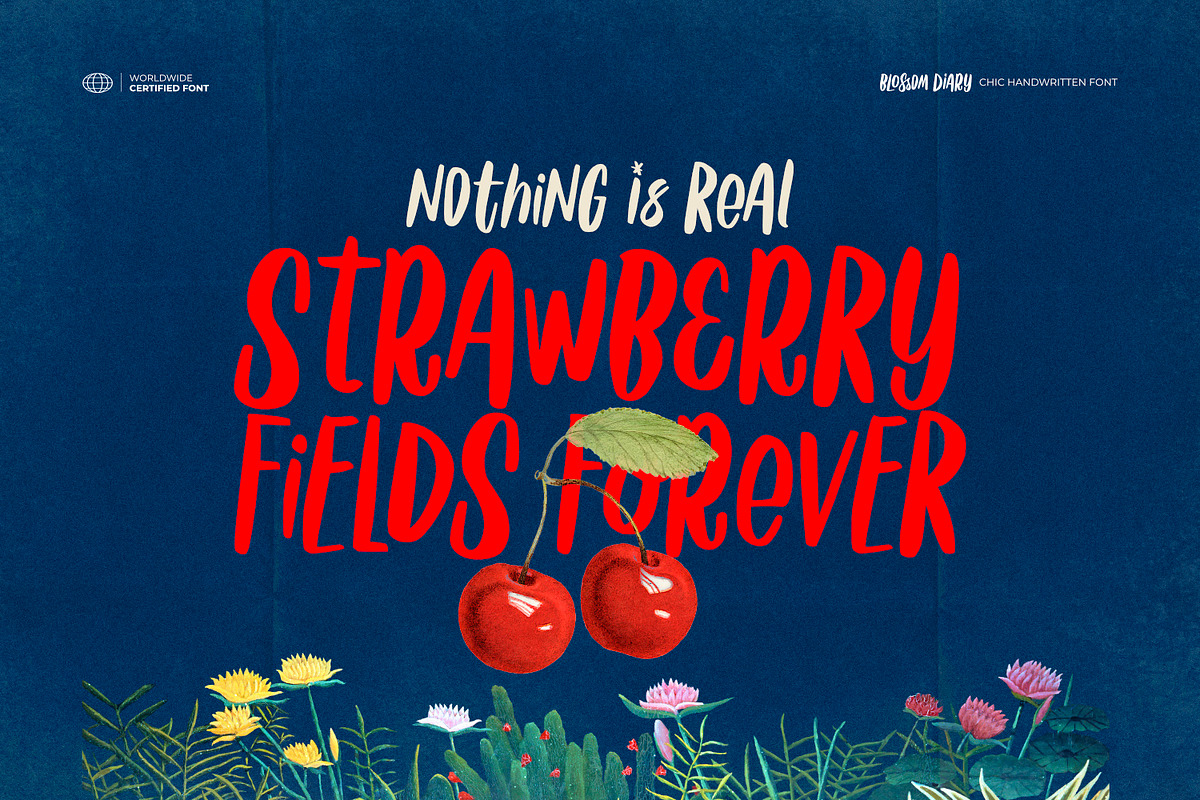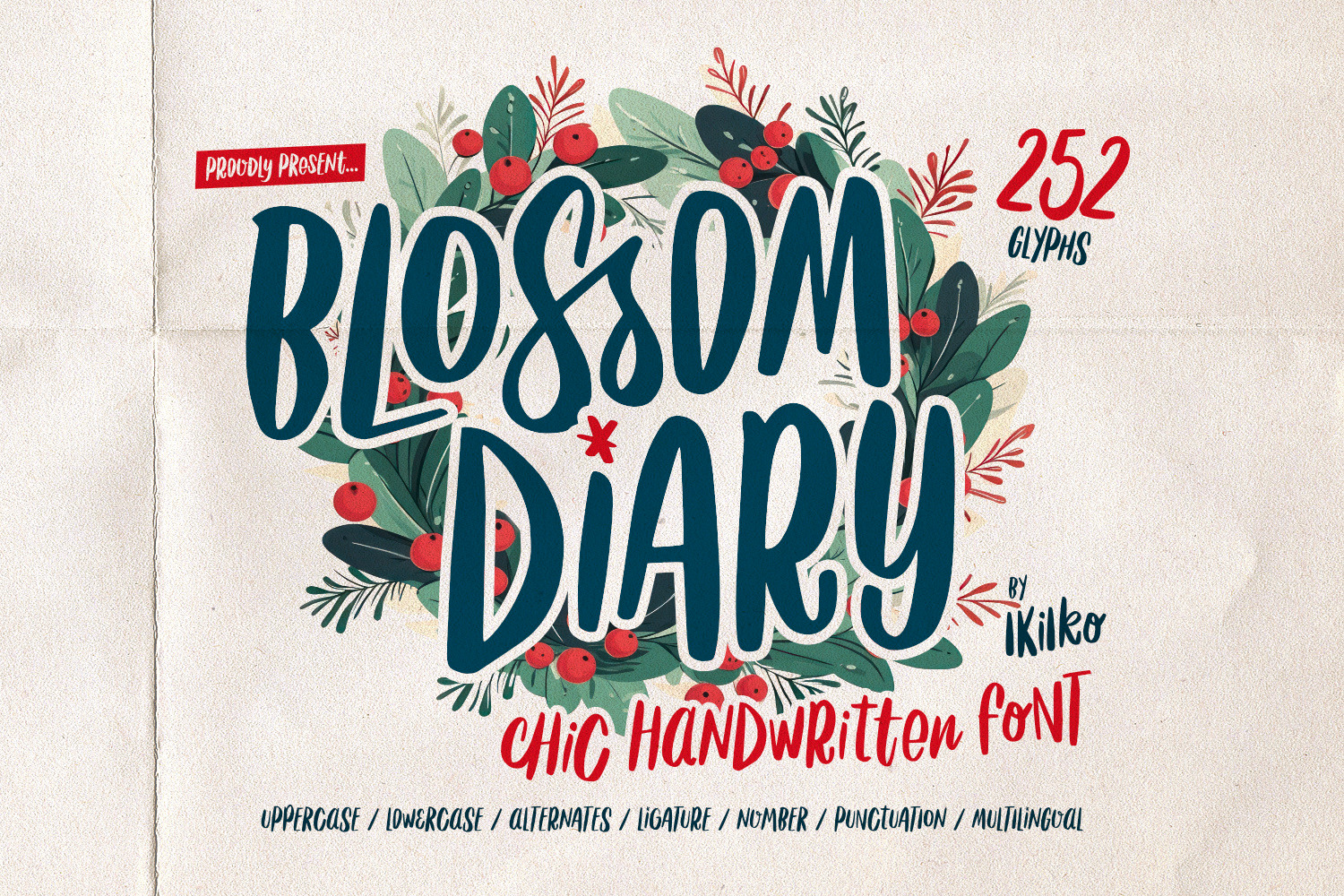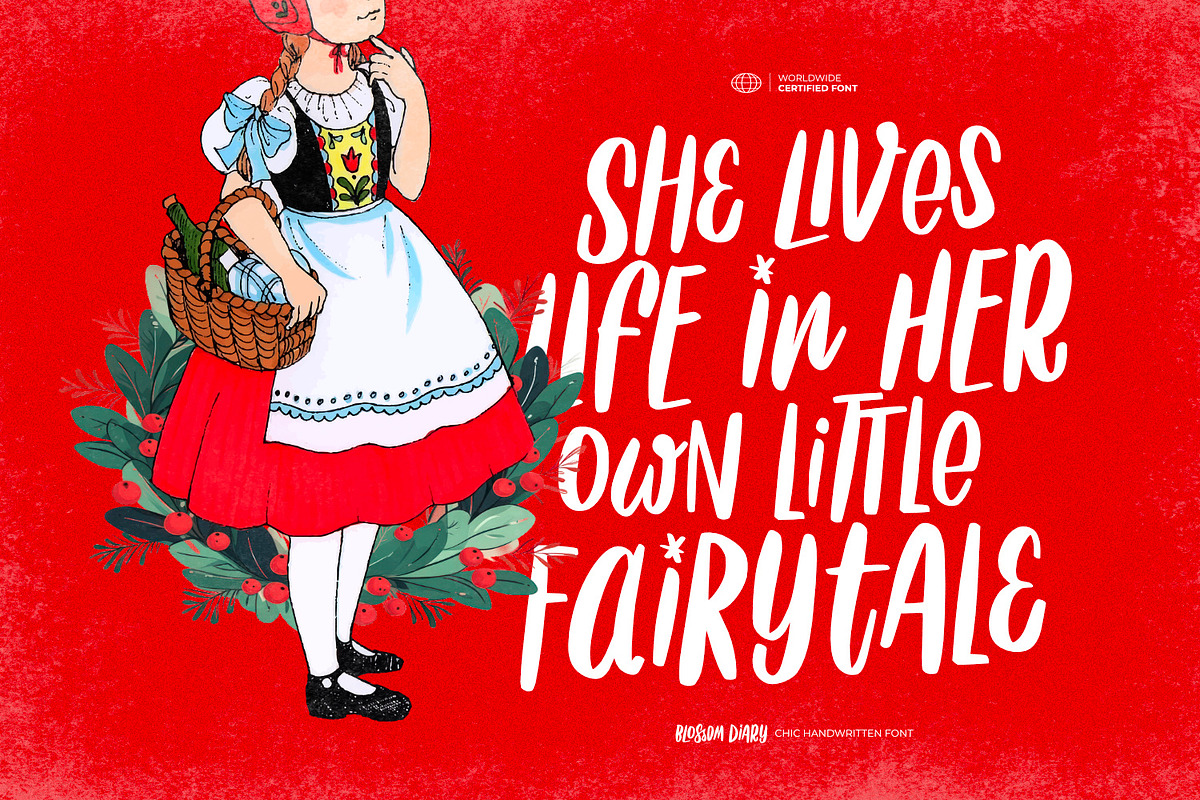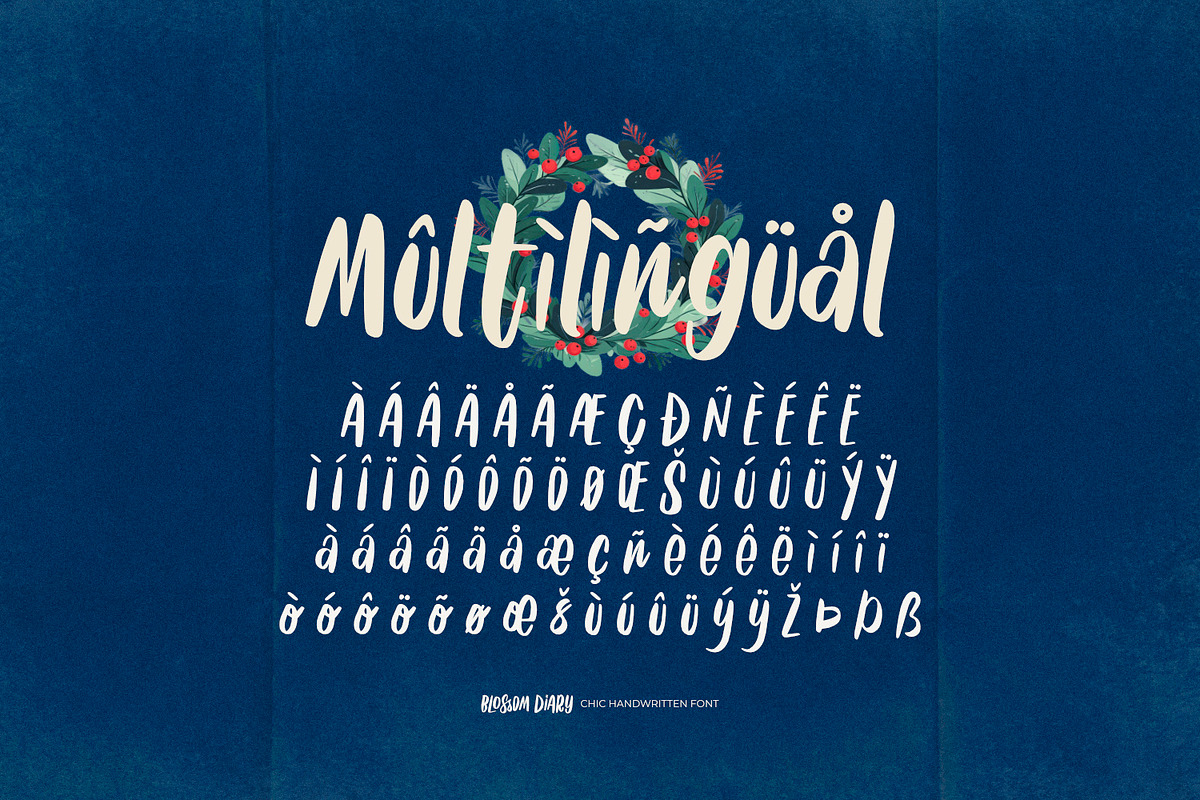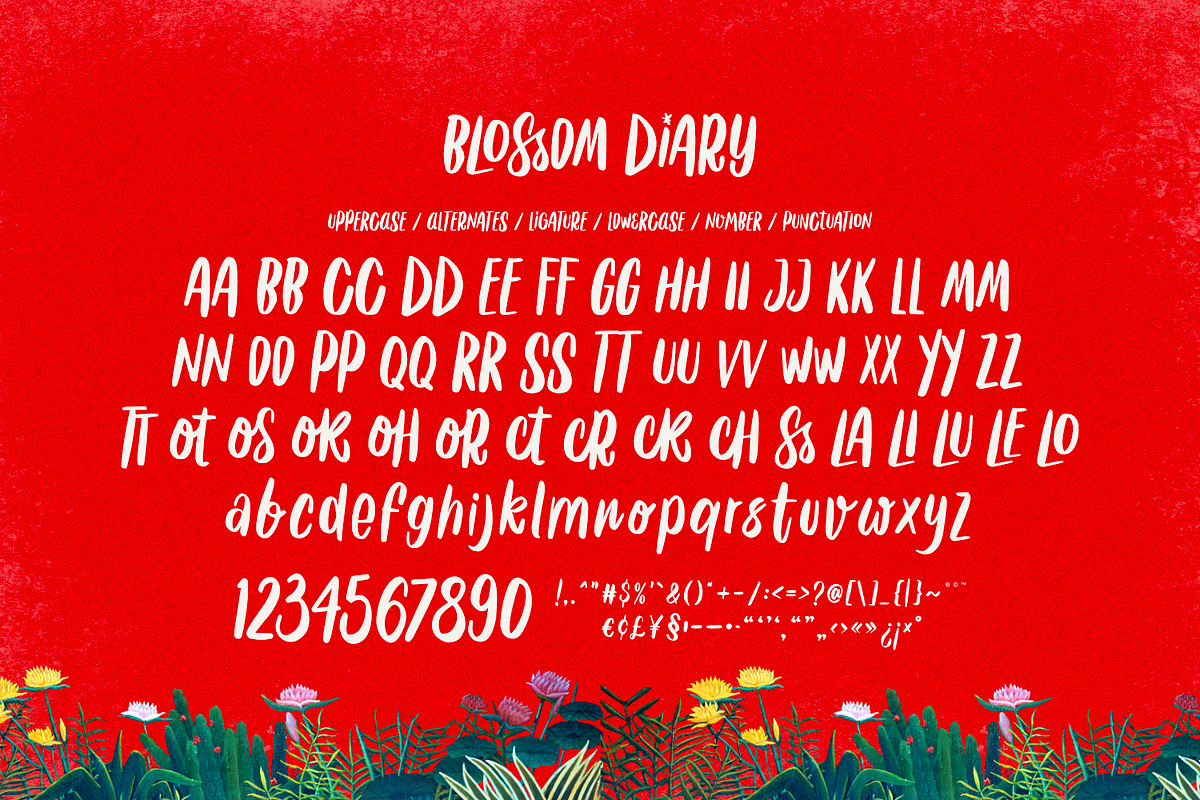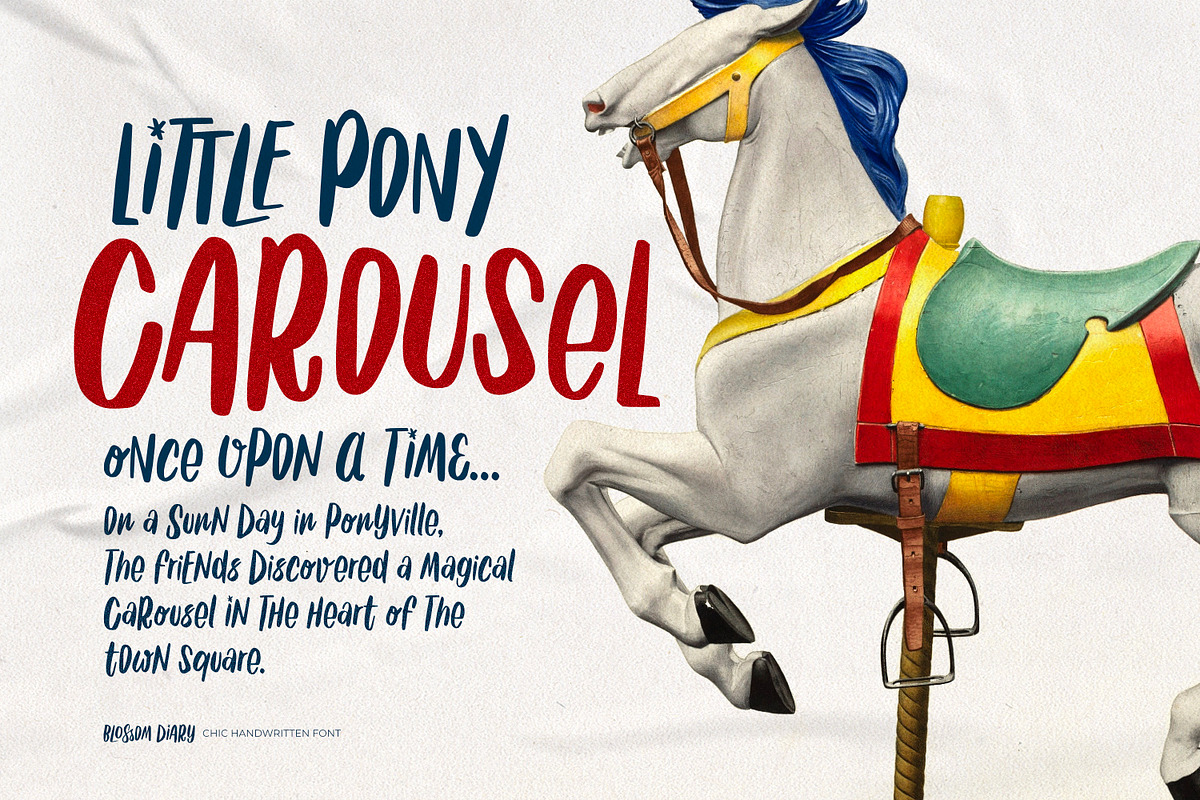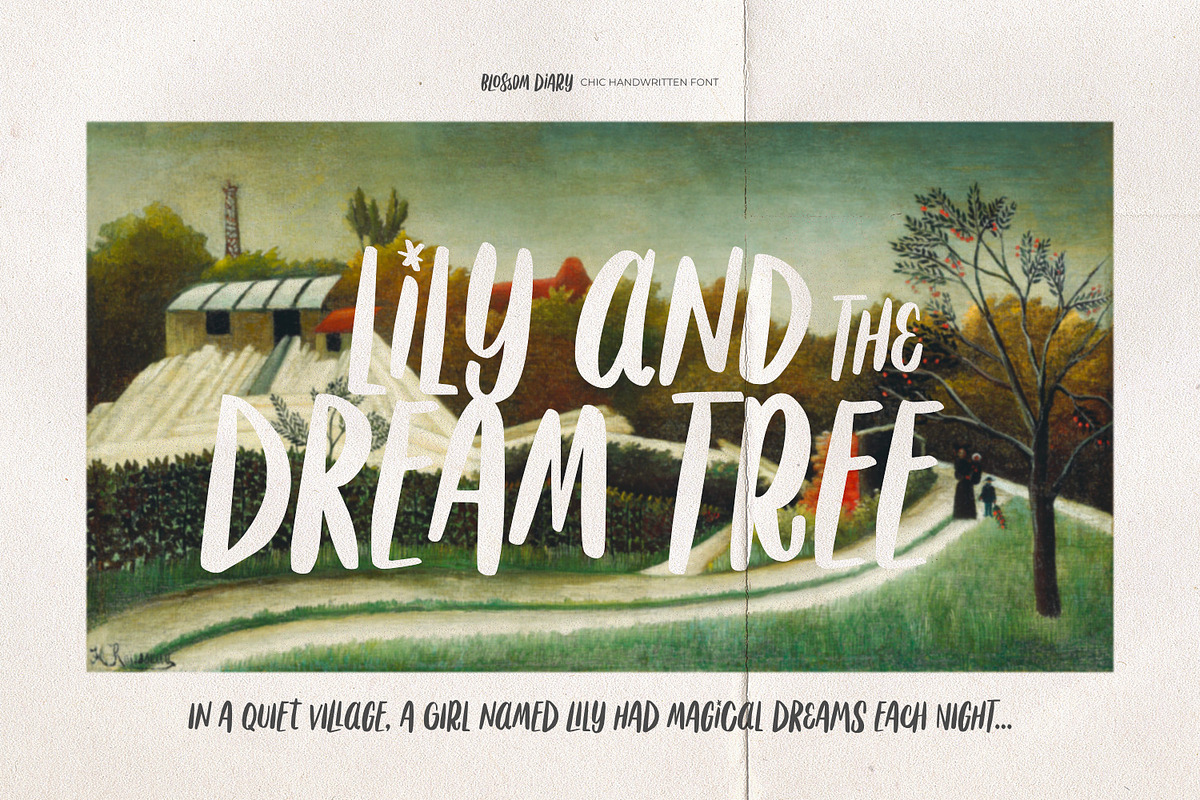
Blossom Diary-Chic Handwritten Font
Proudly present Blossom Diary - Chic Handwritten Font, created by ikiiko.
Blossom Diary is a chic handwritten font that captures the whimsical essence of a personal diary or journal. Its fluid, handwriting style feels as if it's been delicately penned by hand, perfect for adding a dreamy and fanciful touch to your designs. Whether used for fairy tales, personal journals, or creative projects, this font combines a modern elegance with a playful, fancy charm. Ideal for those seeking a soft, handwritten look that evokes the magic of storytelling and the charm of handwritten notes.
This font is very suitable for making a story book, fairy tales, kids games, poster event, magazine layout, packaging, food & beverages, quotes, or simply as a stylish text overlay to any background image.